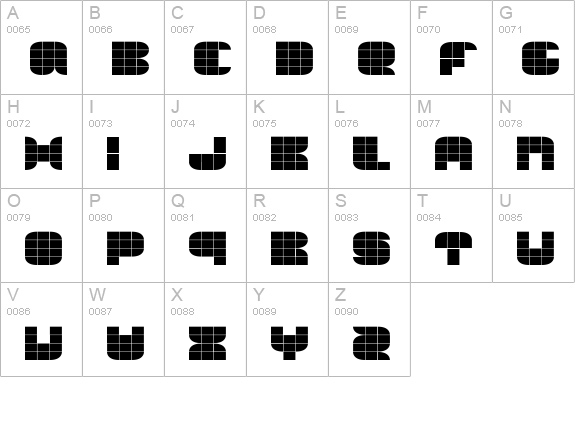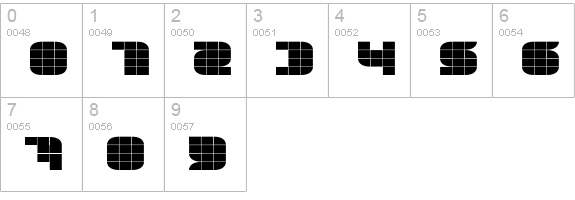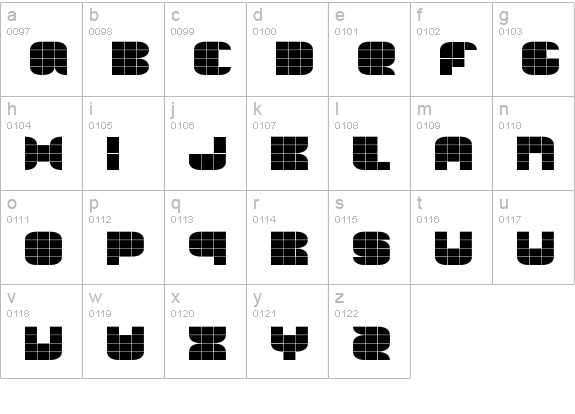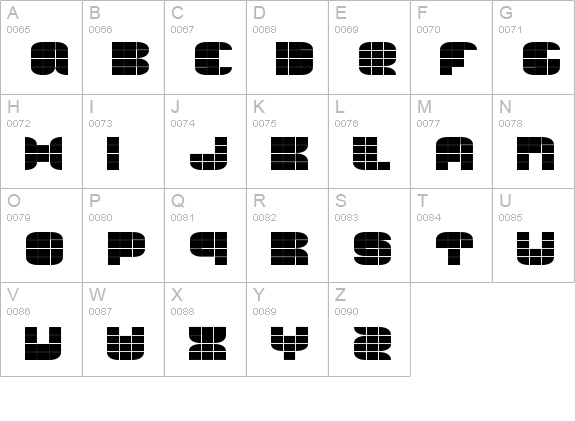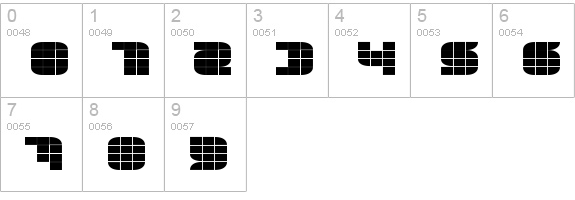
The Summer Edition font is a delightful and whimsical typeface that perfectly captures the essence of the sunny season. Its playful and carefree design evokes a sense of joy and relaxation, making it the perfect choice for any summer-themed project. With its smooth curves and unique letterforms, The Summer Edition font adds a touch of charm and personality to any design. Whether you're creating invitations for a beach wedding, designing a summer-themed poster, or crafting a fun and vibrant logo, this font will bring your creations to life. One of the best things about The Summer Edition font is that it is freely available to download at FontsMarket.com. This means that you can easily access this stunning typeface and use it in your projects without any cost. Whether you're a professional designer or a DIY enthusiast, having a high-quality font like The Summer Edition at your fingertips can make a world of difference. Not only does The Summer Edition font offer a stunning aesthetic, but it also provides excellent readability. Its clean and legible letterforms ensure that your message is delivered with clarity and style. Whether you're using it for print or digital media, this font will make your text pop and grab the attention of your audience. So, if you're looking for a versatile and visually appealing font that perfectly encapsulates the spirit of summer, look no further than The Summer Edition font. Download it for free at FontsMarket.com and let your creativity soar under the sun!